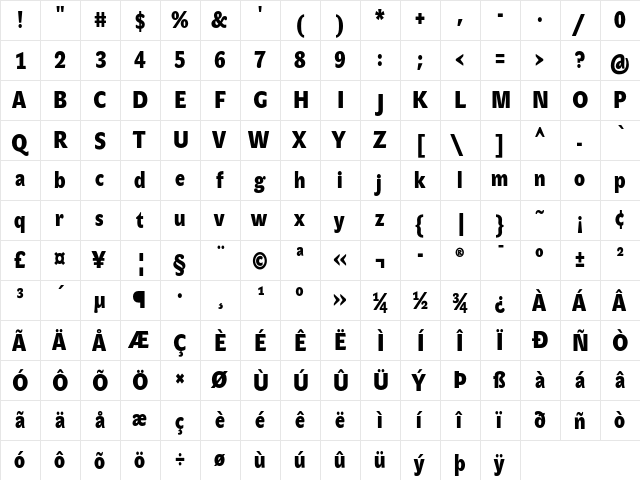
JohnSansCond Black Pro Regular
| Designer | Frantisek Storm |
Design Context for JohnSansCond Black Pro Typeface
JohnSansCond Black Pro takes a measured approach to typography — its balanced proportions and neutral character make it a reliable workhorse for both digital and print work. The condensed width makes it efficient for tight spaces without sacrificing legibility.